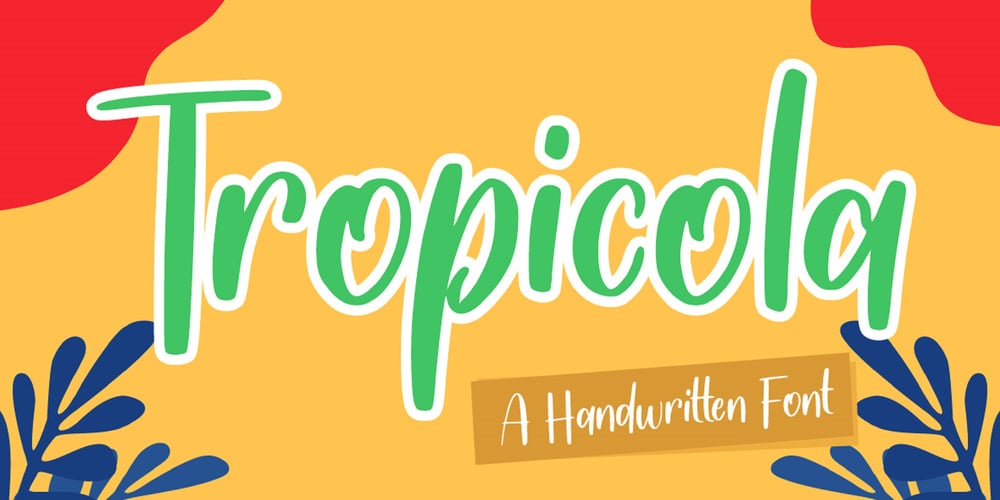
Tropicola Font Family was designed by Heri Imanudin and published by Krafted. Tropicola contains 1 styles and family package options. You, me, sea, and Tropicola Handwritten font! This font is handcrafted with tropical palm trees and sunny vibes! Use this font on different projects, promotions, websites, banners, and even printed materials!Feel the tropical breeze with your audience, clients, or guests with this stylish font now!What you’ll get: Multilingual & Ligature Support Full sets of Punctuation and Numerals Compatible with: Adobe Suite Microsoft Office KeyNote Pages Software Requirements: The fonts that you’ll receive in the pack are widely supported by most software. In order to get the full functionality of the selection of standard ligatures (custom created letters) in the script font, any software that can read OpenType fonts will work. We hope you enjoy this font and that it makes your branding sparkle! Feel free to reach out to us if you’d like more information or if you have any concerns.